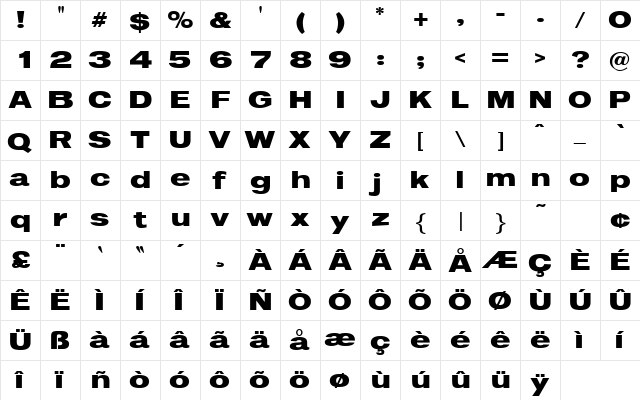
Immediate Regular
Design Context for Immediate Typeface
Immediate offers clean, dependable letterforms without strong stylistic allegiance, making it a practical choice for designers who need flexibility.